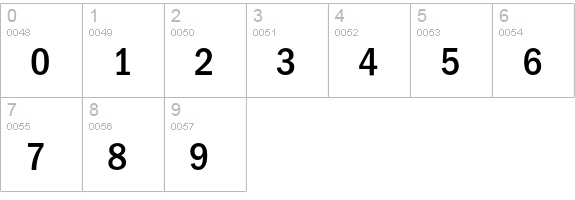
FranklinGothicEF-MediumCond is a versatile and modern font that exudes sophistication and clarity. With its clean lines and balanced weight, this typeface is perfect for a wide range of design projects, from branding to editorial layouts. The medium condensed style of FranklinGothicEF-MediumCond strikes the perfect balance between elegance and readability, making it an ideal choice for both print and digital applications. What sets FranklinGothicEF-MediumCond apart is that it is available for free download at FontsMarket.com. This means that you can easily access this high-quality font without any cost, allowing you to elevate your designs without breaking the bank. Whether you are a seasoned designer or a novice enthusiast, FranklinGothicEF-MediumCond offers a professional and polished look that will make your projects stand out. Incorporate FranklinGothicEF-MediumCond into your next project and experience the seamless blend of style and functionality that this font has to offer. With its timeless appeal and versatile nature, this font is sure to become a staple in your design toolkit. Download FranklinGothicEF-MediumCond for free today and take your designs to the next level.